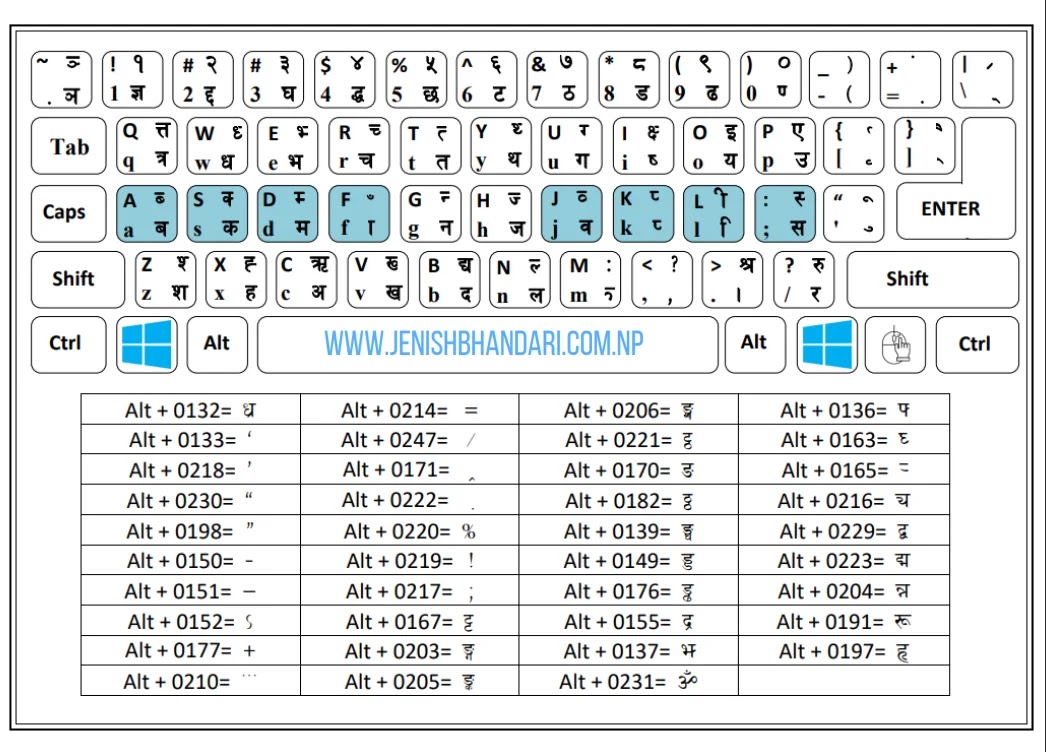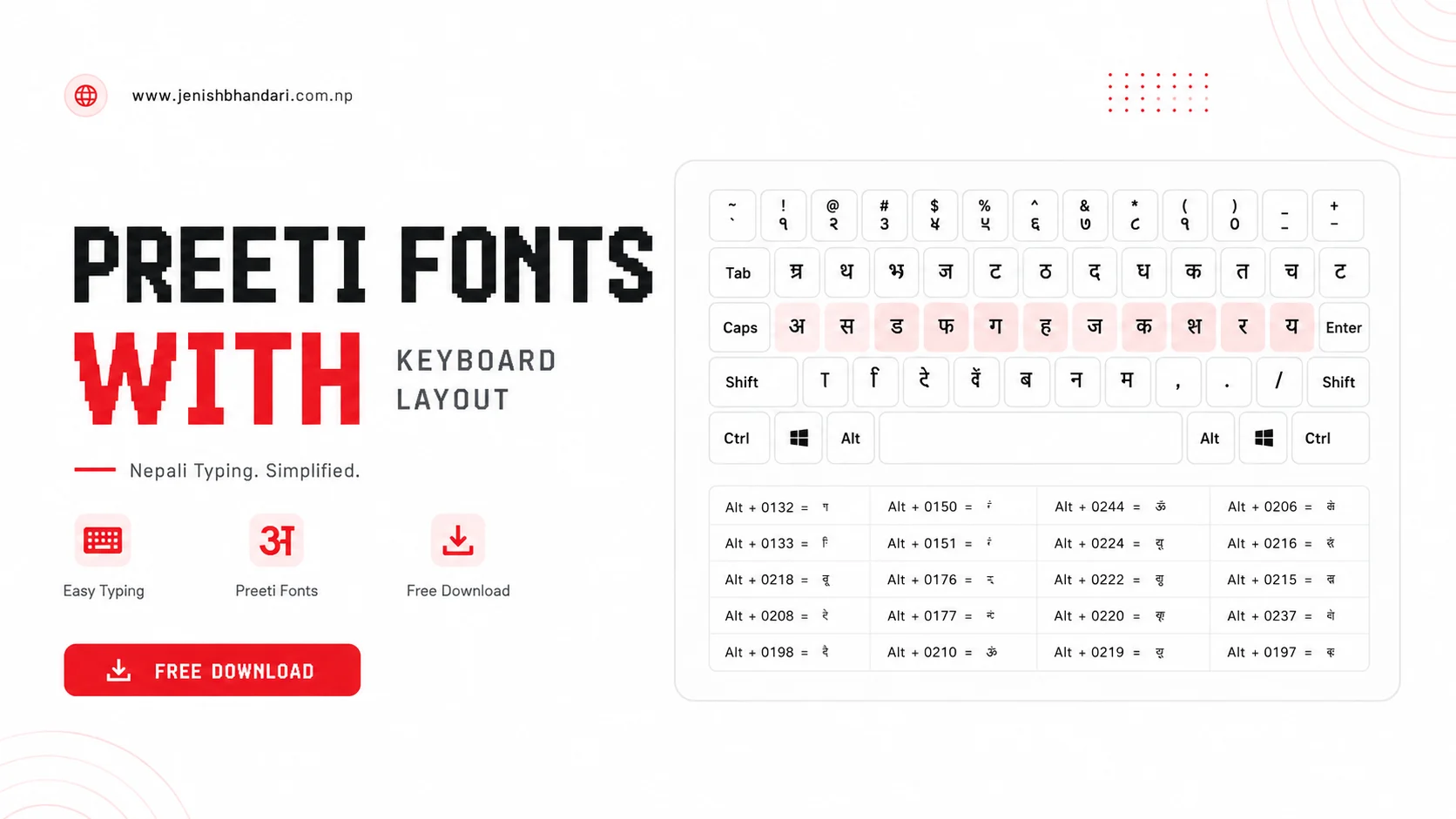
If you're struggling with Nepali typing or want to improve your typing speed in Devanagari script, the Preeti Font Keyboard Layout is an essential tool that will significantly help you master Nepali typing. The Preeti Font Keyboard Layout is a visual reference guide that shows the exact positioning of each Preeti font character on your standard QWERTY keyboard, making it much easier to learn and remember where each Nepali character is located.
This keyboard layout guide is particularly handy for laptop users, as most laptops don't come with Devanagari script printed on their keys, whereas many desktop keyboards do. With the Preeti Font Keyboard Layout, you can quickly reference which key corresponds to which Nepali character without having to guess or memorize through trial and error. Whether you're a beginner just starting with Nepali typing or an experienced typist looking to improve your speed, this layout guide is an invaluable resource.
Understanding Preeti Font: The Most Popular Nepali Computer Font
Before diving into the keyboard layout, it's important to understand what makes Preeti Font so special and why it remains the most popular choice for Nepali typing even after three decades.
Preeti Font holds a significant place in Nepali computing history as one of the first-ever Nepali computer fonts created. It was designed and developed by Ajay Mishra, a pioneering Nepali individual, in approximately 1993 AD using the font editing tool Fontographer 3.5. Despite being almost three decades old, Preeti Font continues to be widely used across Nepal in offices, businesses, government institutions, and personal computers.
Why Preeti Font Remains Popular Today
Several factors contribute to Preeti Font's enduring popularity in the Nepali computing landscape:
- Elegant and Clean Design: Preeti Font features a neat, professional appearance that makes it suitable for both formal documents and casual communication
- Excellent Readability: Unlike many stylish Nepali fonts that sacrifice readability for aesthetics, Preeti Font maintains clear, easily readable characters even at small sizes
- Error-Free Font: The font is meticulously designed with no character errors or glitches, ensuring your documents appear professional
- Printable Quality: Preeti Font maintains its clarity and quality when printed on paper, making it ideal for official documents
- Industry Standard: Most Nepali offices, businesses, and government institutions use Preeti Font as their standard, making it essential for professional work
- Wide Compatibility: Works seamlessly across different Windows versions and applications
- Legacy Support: Decades of documents have been created in Preeti Font, ensuring its continued relevance
The widespread adoption of Preeti Font in professional settings is a testament to its reliability and quality. When businesses and offices need simple, clear Devanagari text, Preeti Font is almost always the first choice. This standardization means that learning Preeti Font typing is not just useful—it's essential for anyone working with Nepali text in professional settings.
What is Preeti Font Keyboard Layout?
The Preeti Font Keyboard Layout is a comprehensive visual guide that displays the mapping of Devanagari script characters to your standard English (QWERTY) keyboard. It's essentially a reference image that shows you which key on your keyboard corresponds to which Nepali character in the Preeti Font.
Think of it as a roadmap for your Nepali typing journey. Just as a map helps you navigate unfamiliar territory, the Preeti Font Keyboard Layout helps you navigate the Nepali keyboard by showing exactly where each character is located. This visual reference is invaluable for beginners who are just starting to learn Nepali typing and for intermediate users who want to improve their typing speed and accuracy.
Key Benefits of Using Preeti Font Keyboard Layout:
- Visual Learning Aid: Provides a clear visual reference for character positioning, making learning faster and more intuitive
- Faster Memorization: Helps you quickly memorize the position of each Nepali character on your keyboard
- Improved Accuracy: Reduces typing errors by giving you a reliable reference to check character positions
- Practice Support: Serves as a helpful reference while practicing Nepali typing exercises
- Portable Reference: Can be saved on your device or printed out for easy access anytime
- Self-Learning Tool: Enables independent learning without requiring a teacher or course
- Speed Development: Helps build muscle memory faster, leading to improved typing speed